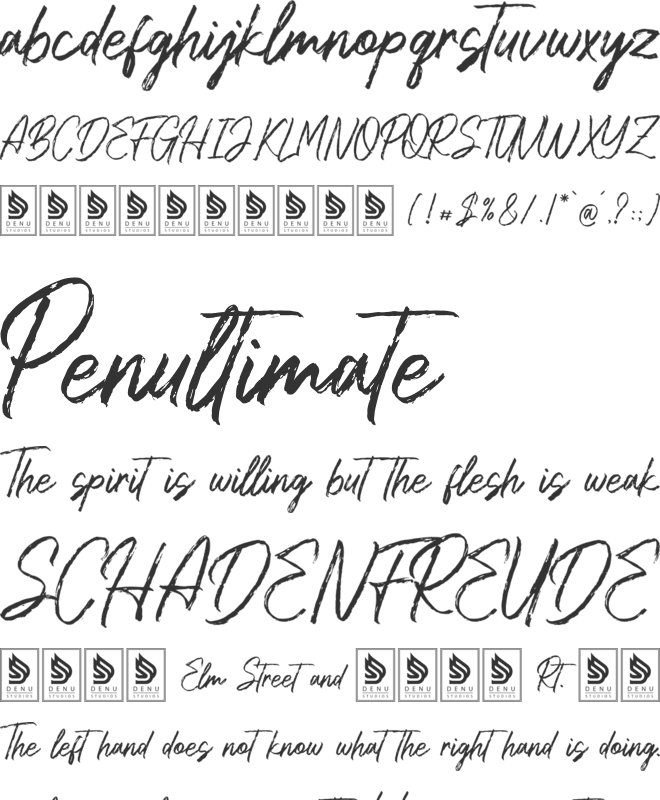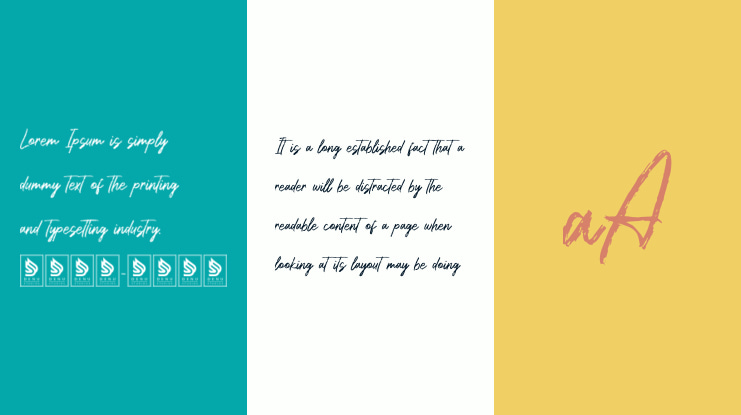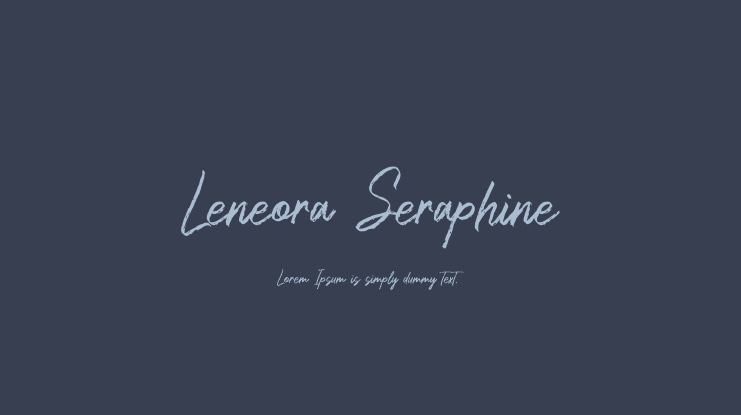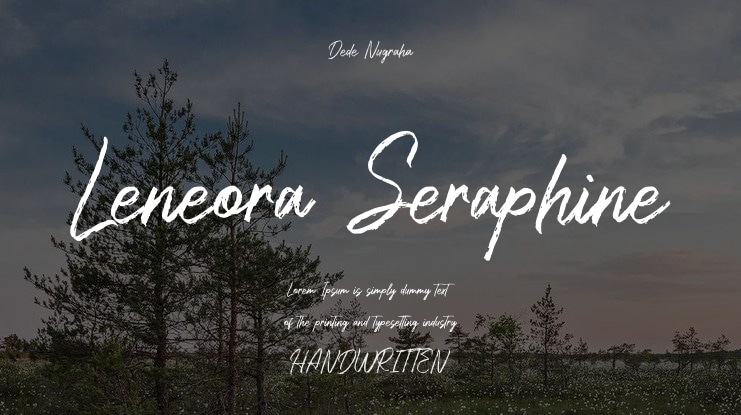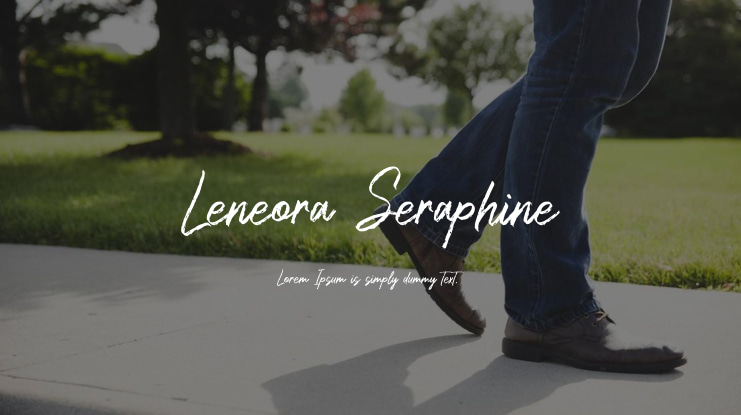
Leneora Seraphine Font
Leneora Seraphine | Brush Handwritten Font
Leneora Seraphine is a brush handwritten font suitable for a variety of projects, including logos, branding, homeware designs, product packaging, mugs, quotes, posters, shopping bags, t-shirts, book covers, name cards, invitation cards, greeting cards, labels, photography, watermarks, special events, and other projects that need a brush script touch.